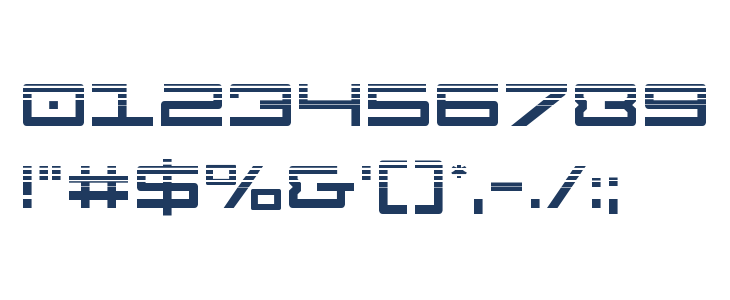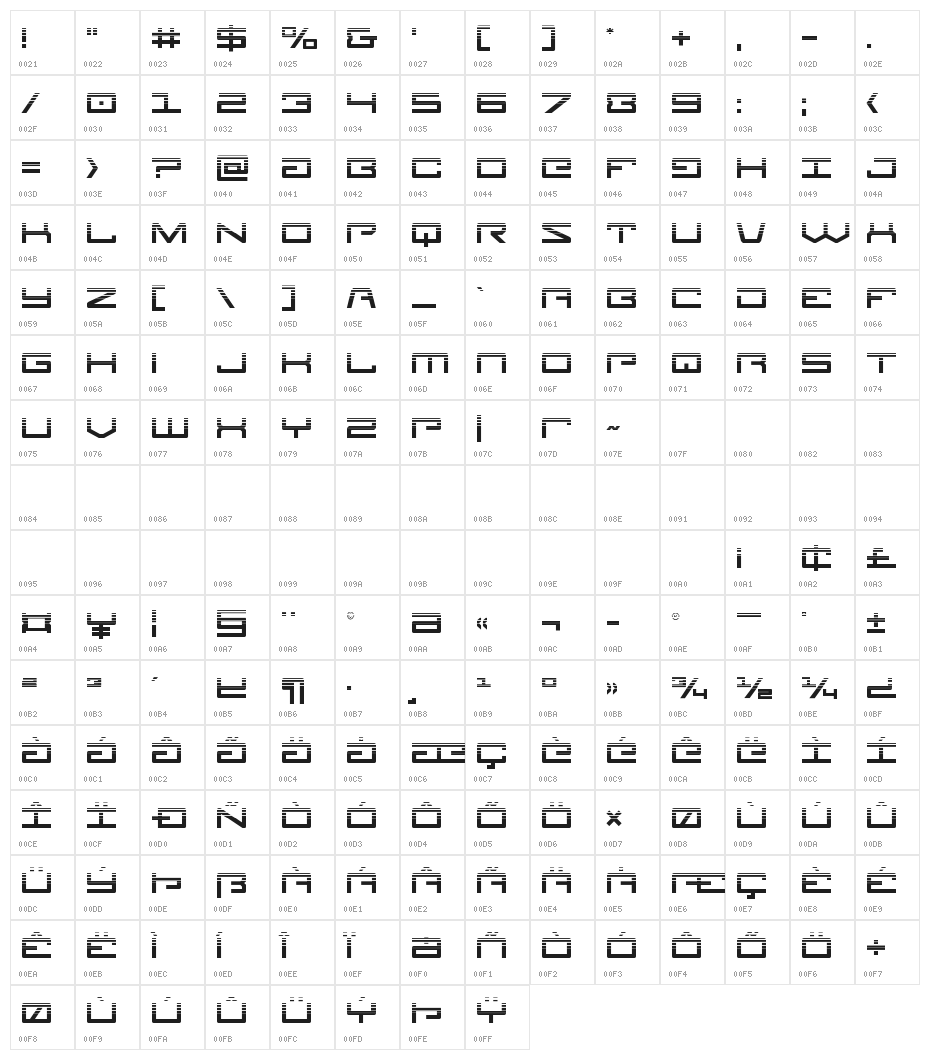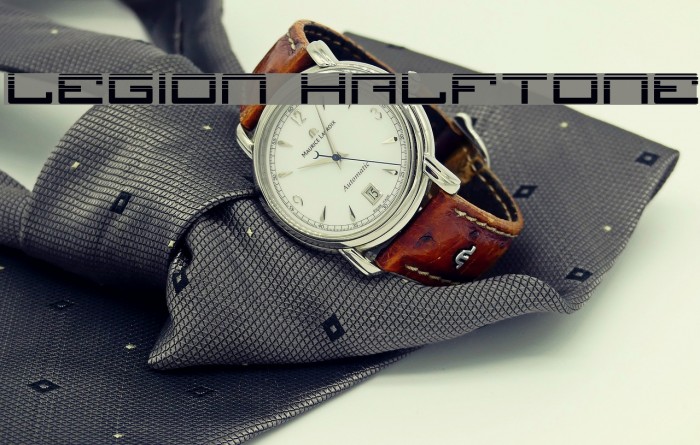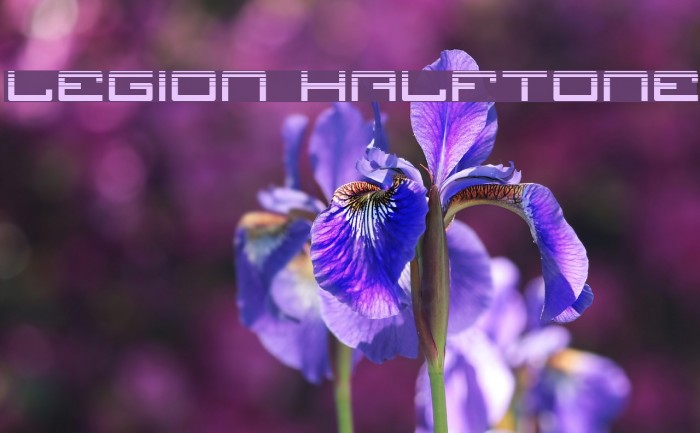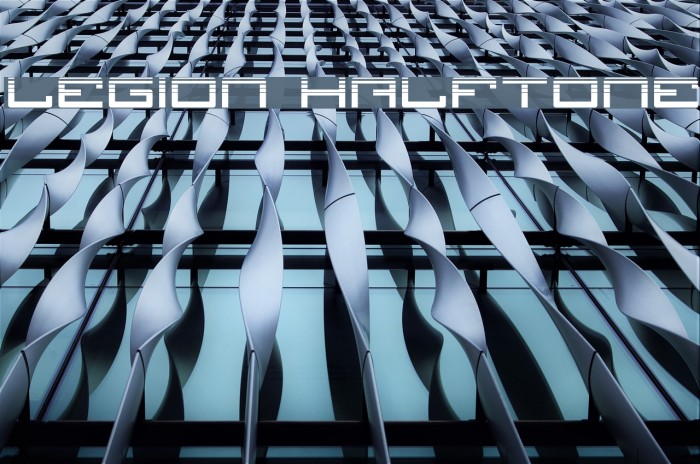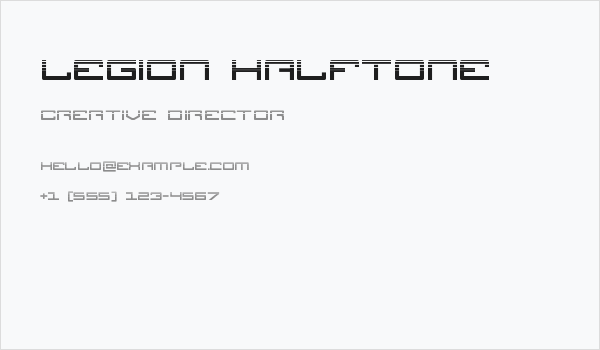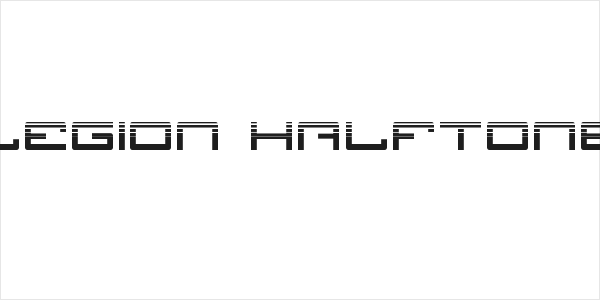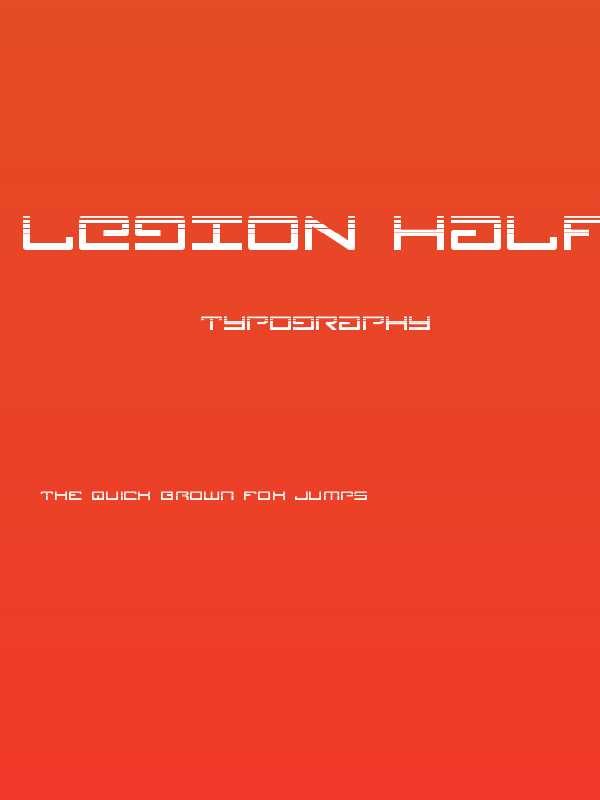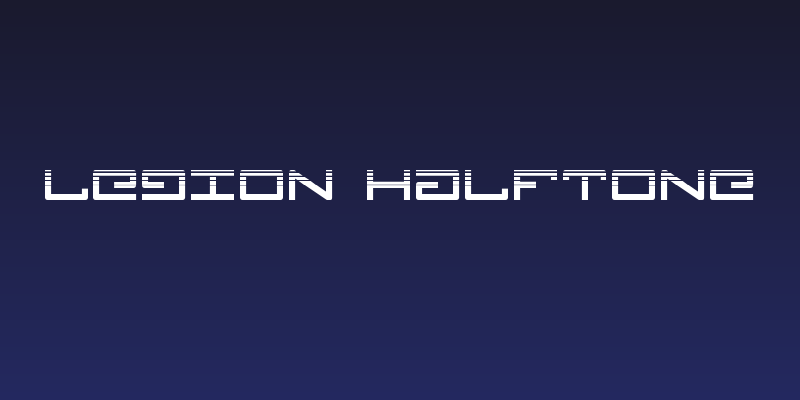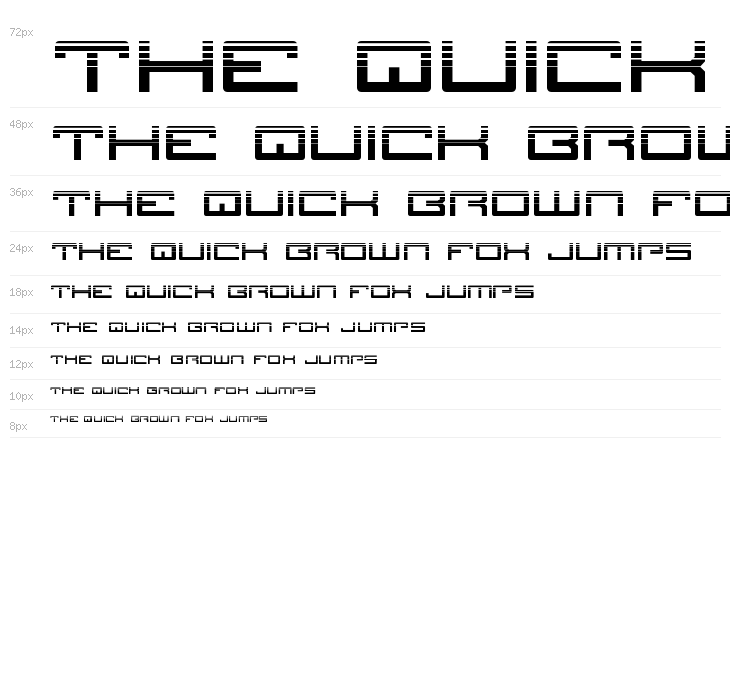
Legion Halftone Font
Legion Halftone Description
This font features a unique halftone pattern within its characters, giving it a futuristic and digital appearance. The uppercase and lowercase letters maintain a consistent geometric structure, with sharp angles and a blocky form. The numbers and special characters follow the same design principles, ensuring uniformity across all glyphs. The halftone effect adds a textured look, reminiscent of digital screens or printed media, making it stand out in any design. Its bold presence and distinctive style make it ideal for projects that require a modern and tech-savvy aesthetic.
| Proposed Projects | Ideal for digital media, tech branding, video game design, and futuristic posters. |